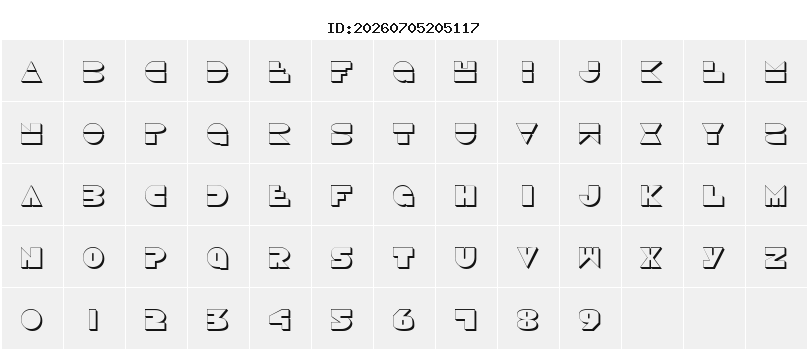
• Font Name: Disco Duck 3D
• Font Style: 3D
About Disco Duck 3D.ttf
Disco Duck 3D.ttf is a modern, elegant sans-serif font designed for ultimate readability and visual harmony. Perfect for branding, headlines, web design, and print materials.